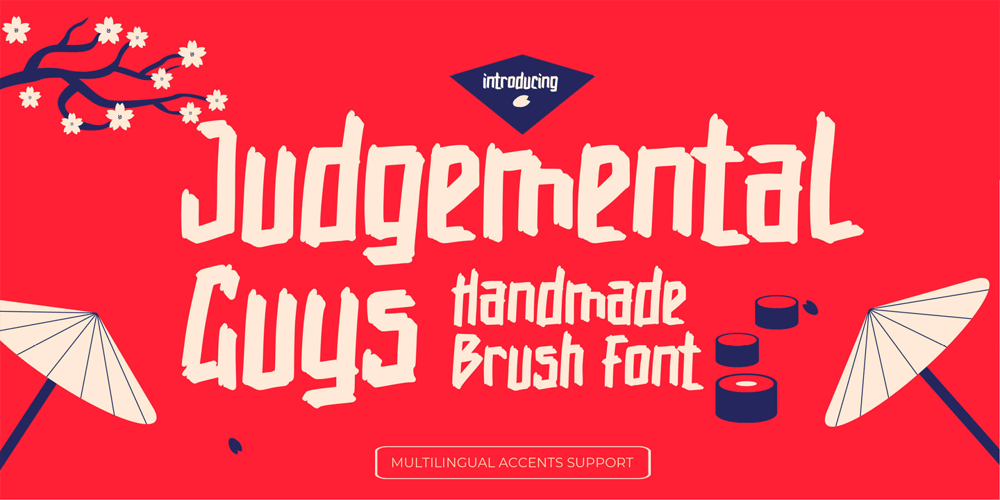
Judgemental Guys Font Family was designed by Abdul Malik Wisnu, Anang Fibriyanto and published by Gassstype. Judgemental Guys contains 1 styles and family package options. Hello Everyone,introduce our new product Judgemental Guys – Handmade Brush Font is a Signature Style and classy style, this font is great for your creative projects such as watermark on photography, and perfect for logos & branding, photography, invitation, watermark,advertisements,product designs, stationery, wedding designs,label ,product packaging, special events or anything that need handwritting taste.Judgemental Guys a natural handwritten feel. This handmade font will make your design has a beautiful natural touch for each details. It is perfect for any design project as Invitation,logo, book cover, craft or any design purposes,photos, photography overlays, signs, window art, scrapbooking, tags and so much more!